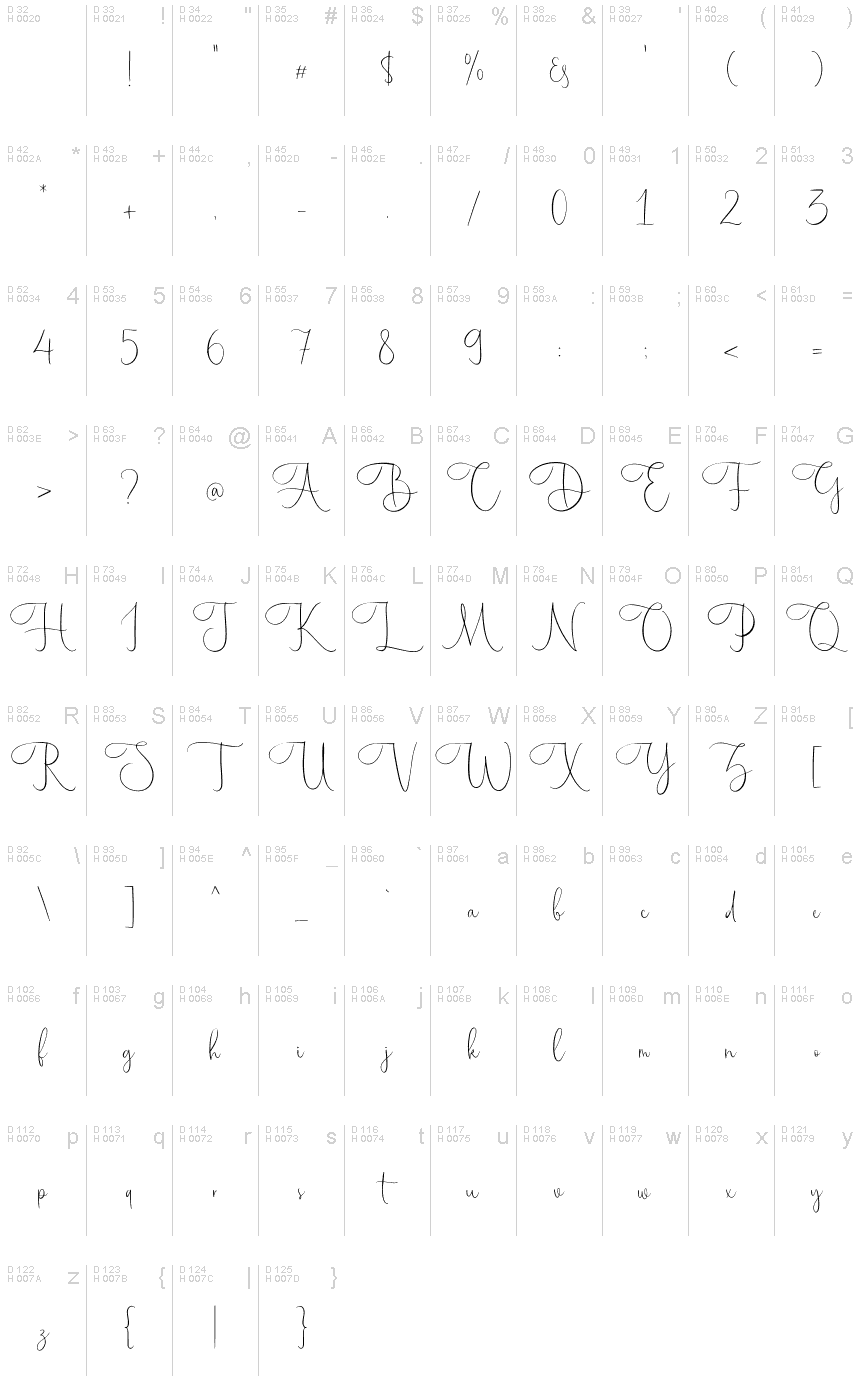
Maestrography
This beautiful font, Maestrography, was designed by Allouse.Studio with a light calligraphy style. Maestrography is perfect for adding an elegant touch to any project; from wedding invitations and book covers to posters and logos. Its thin strokes make it perfect for creating intricate designs that still maintain legibility. This font is sure to turn any project into something truly special!